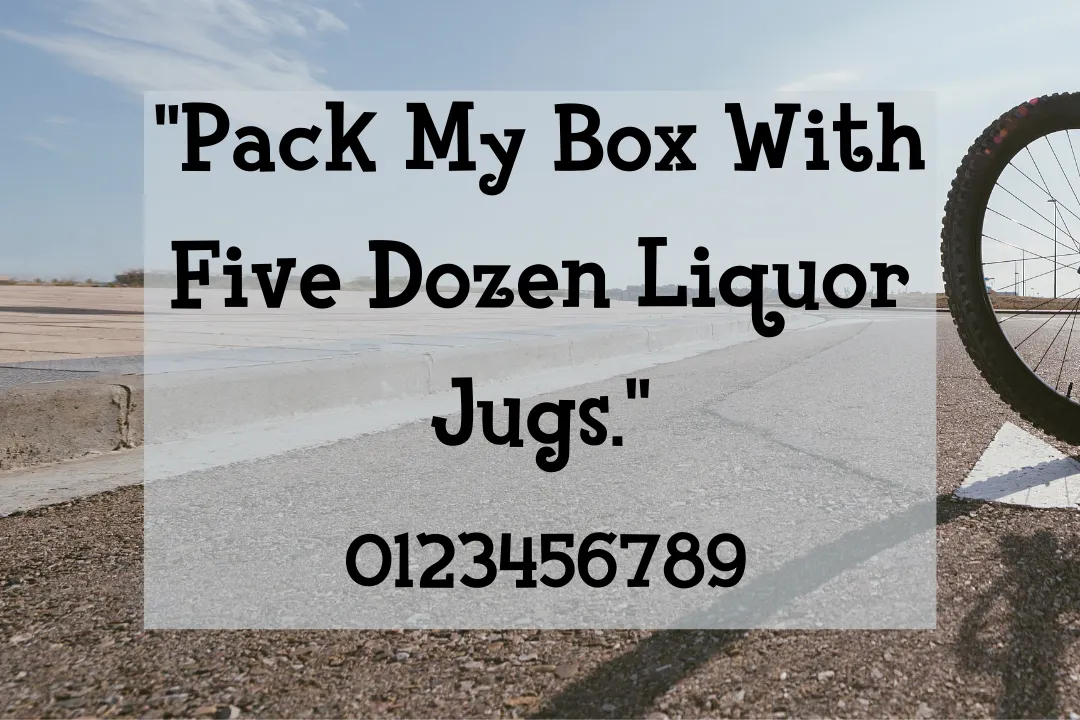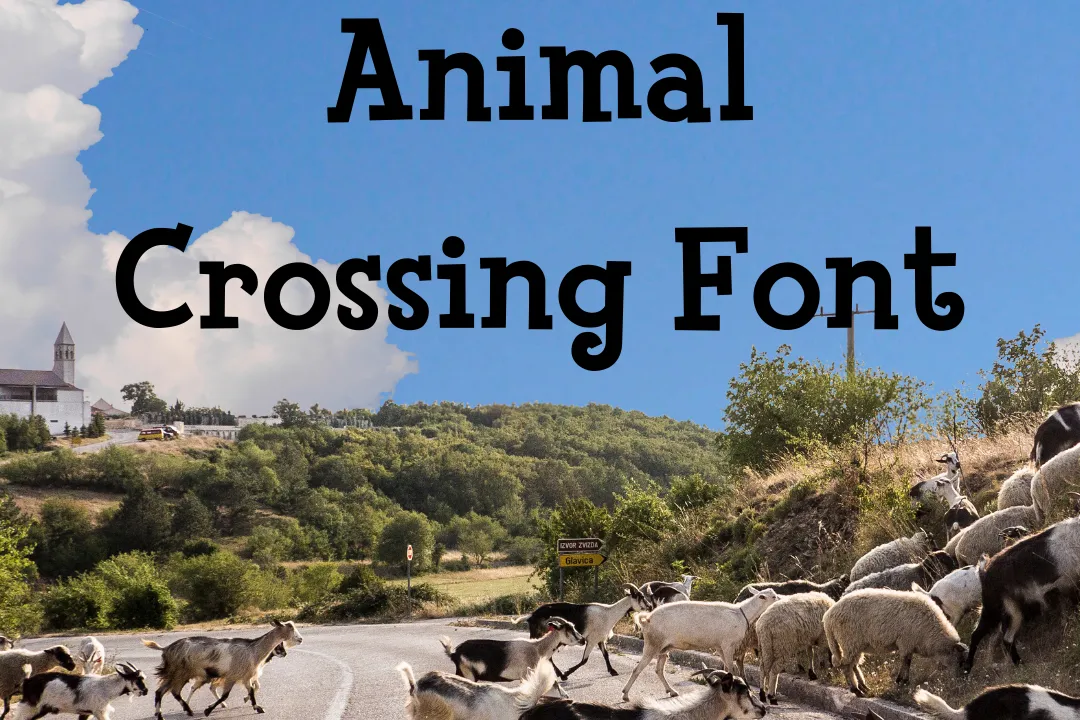
Rd Roth is a famous typeface designer who designed a classic typeface that goes under the name Animal Crossing Font. This texture lies in the category of Slab Serif typeface. It is a popular video game that is known by the name animal crossing.
It is designed for the logo of this game. The copy and paste function of this attractive typeface is very classic. You can also use it similar belwe font for more classic results.
Who Can Use Animal Crossing Font
The uses of this family are more outstanding as compared to others. You can use it for different types of designing stuff like clothes designs, painting and so on. For the tutorial video, the Animal Crossing typeface is a perfect choice.
You can also utilize it for all of your personal blogs. It is also used for the logos of famous video games. In order to enjoy its more unique results, you will have to use courier font with the pairing of this texture.
Animal Crossing Font View
| Style | Slab Serif |
What font is Animal Crossing?
A famous font fink heavy font that is used for this classic texture to design the game title.
Can I use the Animal Crossing font for my Logos Designs?
Yes, sure you can also use this typeface for all of your logo designs. It is used for the logos of games.
What is the generator tool for the Animal Crossing typeface?
An online tool, known as a generator tool is suitable for creating colorful graphic-type tasks.
Who is the designer of the Animal Crossing typeface?
This gorgeous typeface was developed by a brilliant mind designer Rd Roth.